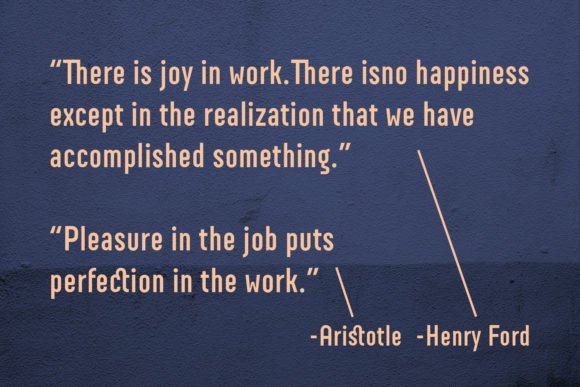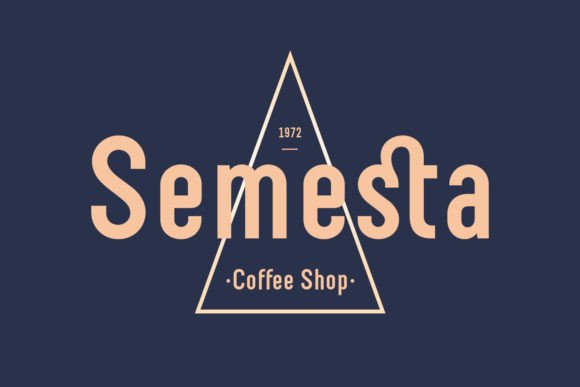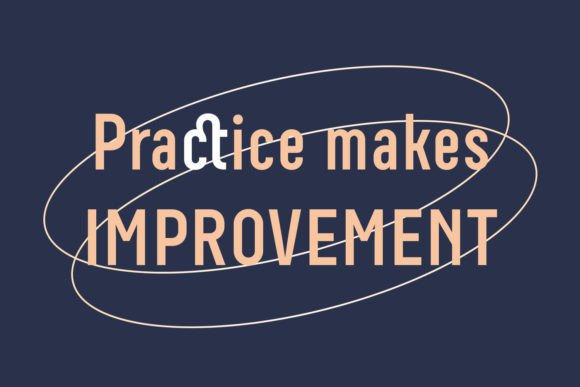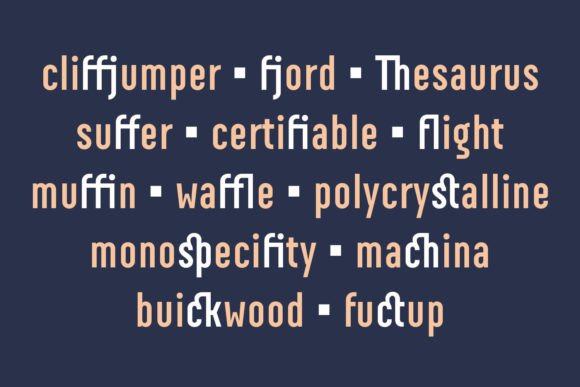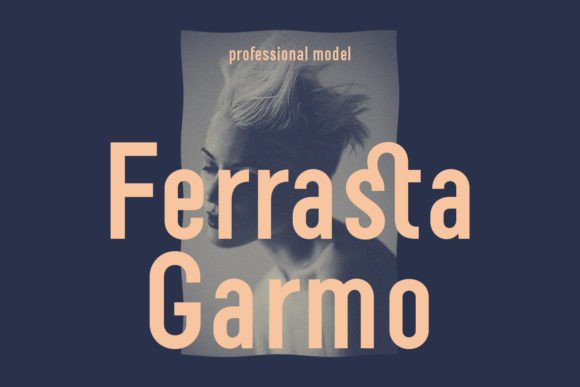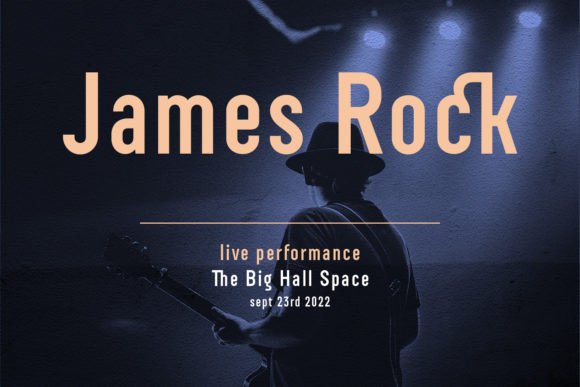
The Perfect Font for Making a Statement
As a designer, have you ever been stuck trying to find the perfect font to make your message stand out? You’ve poured your heart and soul into a project, but that one element is holding you back from truly making an impact. I know I have.
Enter Boscha Font, a condensed sans serif display font designed to cut through the noise and make your message shine. Whether it’s a bold logo, eye-catching heading, or impactful quote, Boscha Font is the perfect tool for getting your point across. Its versatility makes it a valuable asset for designers looking to add a touch of sophistication and style to their work.
Boscha Font Key Features
- Font Family: Boscha is a sans-serif font family with a unique blend of modern and vintage elements.
- Unique Characteristics: Boscha’s distinctive design features include rounded edges, geometric shapes, and a subtle vintage flair, making it perfect for modern and retro-inspired designs.
Boscha Font Review
Overall, Boscha Font has a quirky charm to it ✨. The combination of a sans-serif and script font styles makes it perfect for titles and headings, adding a touch of elegance and sophistication to any design.
The font has a wide range of weights, from light to bold, which provides great flexibility when it comes to styling and formatting text ✨. The script parts of the font are well-designed and fluid, making it perfect for adding a personal touch to headings and titles.
However, Boscha Font also has some limitations ⚠️. The font can look cluttered and busy when used extensively, especially in large blocks of text ⚠️. This can make it difficult to read and may require additional design elements to break up the text.
- Limited x-height, which can affect readability in certain contexts
- Not suitable for body text due to its busy and cluttered nature
Boscha Font is a great addition to any design library, but it’s best used in moderation ✨. When used correctly, it can add a unique touch to headings and titles. However, it may not be the best choice for body text or large blocks of text ⚠️.
Getting the Most Out of Boscha Font
To get the most out of the Boscha font, use it in conjunction with bold and italic styles to add emphasis and create visual hierarchy. You can also use the font in combination with other fonts to create a unique and stylish design.
The Boscha font is commonly used in branding, logos, and advertising materials. It’s also great for creating eye-catching headings and titles in publications, websites, and social media posts.